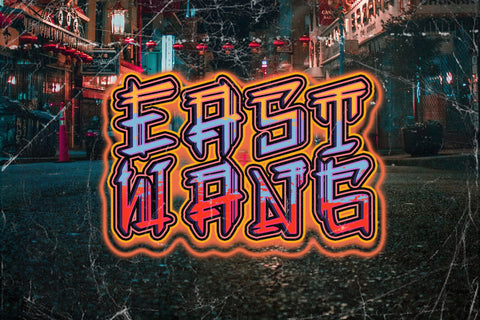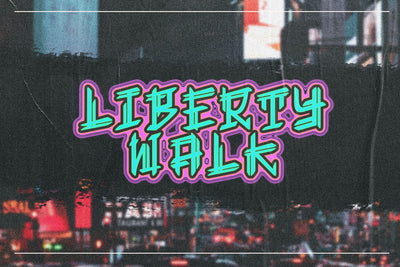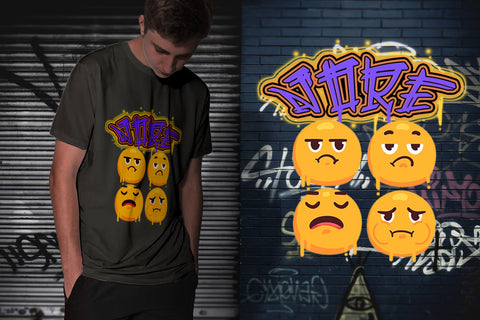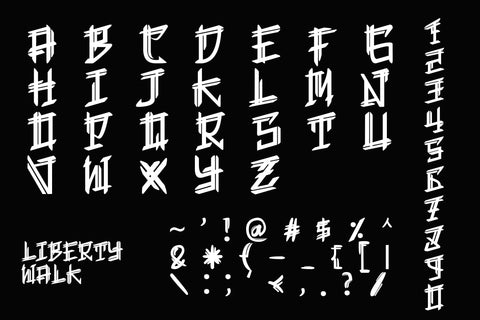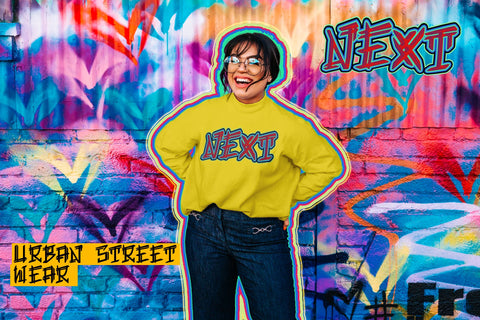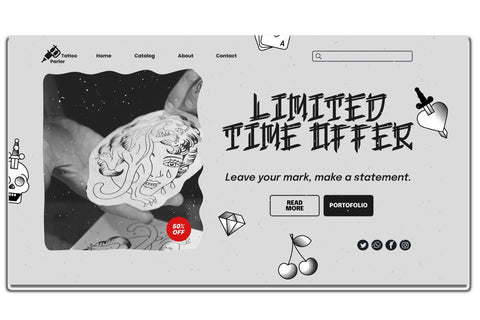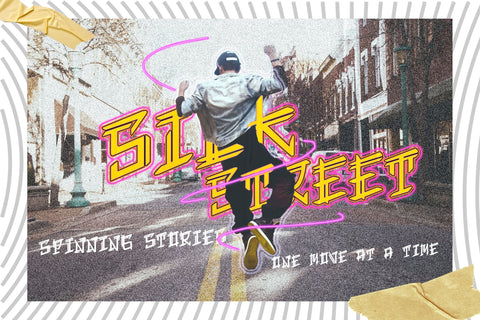
Liberty Walk - Cool Display Font
"Liberty Walk" is a display font featuring characters with straight, upright lines. Fonts like this are often used to give a clean, simple, and assertive appearance to designs. They are suitable for various design projects, including logos, posters, titles, or other design elements that require clear and upright typography.
- Graffiti Characters looks